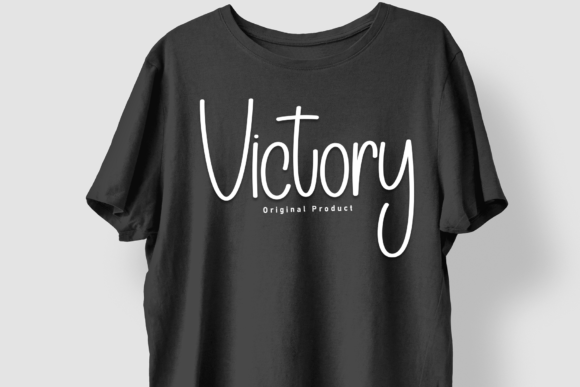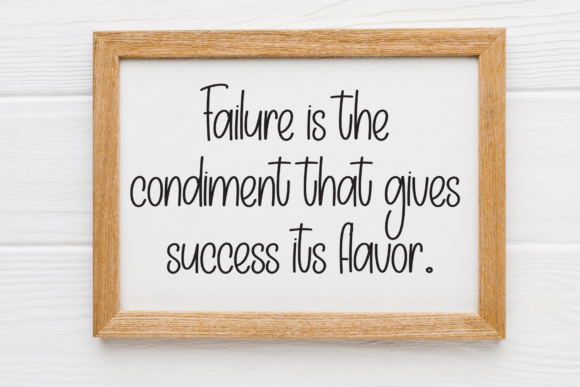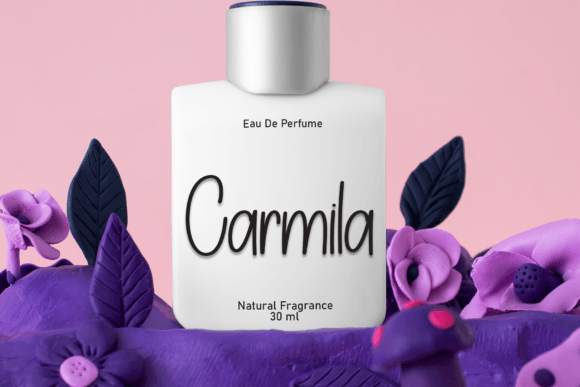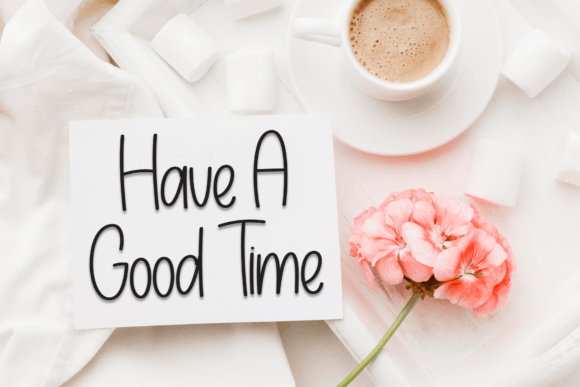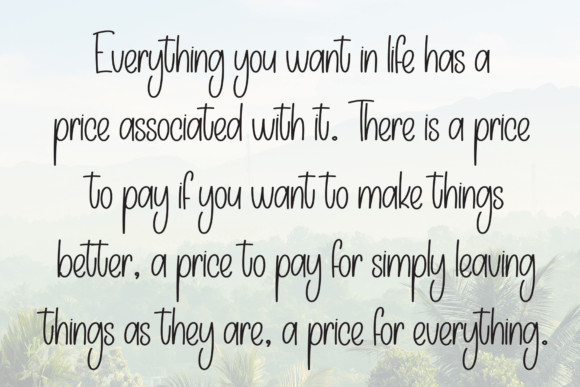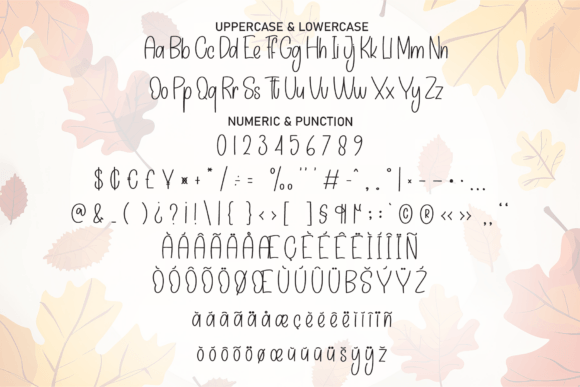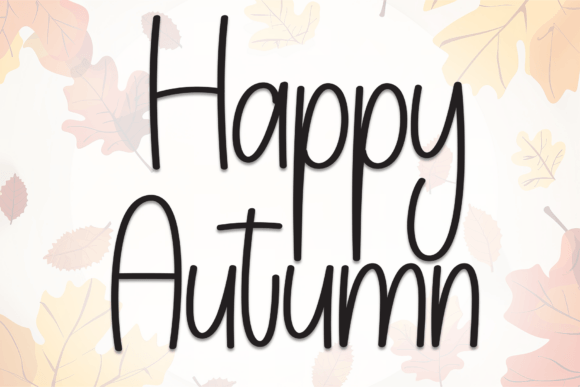
Happy Autumn Font: The Perfect Addition to Your Fall-Themed Projects
As the leaves begin to change colors and the air grows crisper, designers and crafters start looking for ways to capture the cozy essence of autumn in their work. One of the most effective ways to do this is with a warm and inviting font that screams fall. That’s where the Happy Autumn Font comes in – a cheerful handwritten font that’s perfect for autumn-themed projects, invitations, and seasonal decorations.
What is Happy Autumn Font?
Happy Autumn is a playful, handwritten font that’s designed to evoke the feeling of a crisp fall day. Its letters are carefully crafted to have a warm, inviting style that’s sure to make your audience feel like they’re wrapped in a cozy blanket on a chilly autumn evening. Whether you’re designing a seasonal greeting card, a fall-themed party invitation, or a set of festive decorations, Happy Autumn Font is the perfect choice.
Key Features of Happy Autumn Font
• Playful and Cheerful: Happy Autumn Font is a cheerful and playful font that’s sure to add a touch of whimsy to your designs.
• Handwritten Style: The font’s handwritten style gives it a personal, homemade feel that’s perfect for autumn-themed projects.
• Warm and Inviting: The font’s warm and inviting style is sure to make your audience feel cozy and comfortable.
• Perfect for Fall-Themed Projects: Happy Autumn Font is specifically designed for autumn-themed projects, making it the perfect choice for designers and crafters.
Uses for Happy Autumn Font
Happy Autumn Font is a versatile font that can be used for a wide range of projects, including:
• Autumn-Themed Invitations: Use Happy Autumn Font to create festive and inviting invitations for fall parties, harvest festivals, and other seasonal events.
• Seasonal Decorations: Add a touch of autumn charm to your decorations with Happy Autumn Font, perfect for creating signs, banners, and other festive decor.
• Fall-Themed Greeting Cards: Use Happy Autumn Font to create warm and inviting greeting cards for friends and family.
• Crafting Projects: Happy Autumn Font is perfect for a wide range of crafting projects, from scrapbooking to DIY decorations.
Tips for Using Happy Autumn Font
To get the most out of Happy Autumn Font, here are a few tips to keep in mind:
• Pair with Earthy Colors: Pair Happy Autumn Font with earthy colors like orange, yellow, and red to create a cohesive autumn look.
• Use in Combination with Other Fonts: Experiment with using Happy Autumn Font in combination with other fonts to create a unique and eye-catching design.
• Add Fall-Themed Graphics: Add fall-themed graphics like leaves, pumpkins, and acorns to your design to really drive home the autumn theme.
Happy Autumn Font is a cheerful and inviting font that’s perfect for designers and crafters looking to capture the cozy essence of autumn in their work. With its playful, handwritten style and warm, inviting tone, Happy Autumn Font is sure to become a go-to font for fall-themed projects. Whether you’re designing invitations, decorations, or greeting cards, Happy Autumn Font is the perfect choice.